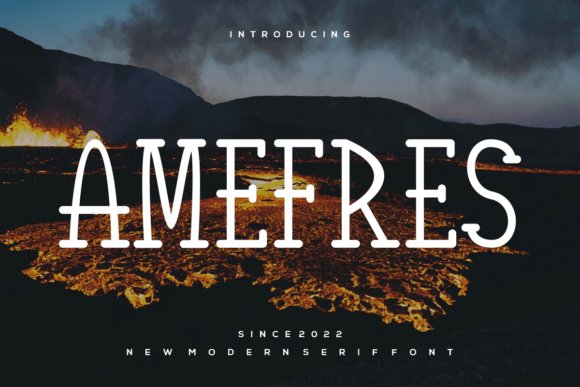
Prepare to be captivated by Amefres, the display font that exudes grace and sophistication. Its roots in classic calligraphy blend seamlessly with a modern, invigorating touch, promising to elevate your designs to extraordinary heights.
Indulge in the allure of Amefres, where each letter dances across the page with an unmatched elegance. Its delicate curves and flowing strokes evoke a sense of timeless beauty, while its crisp, contemporary lines infuse it with a refreshing vitality.
With Amefres, your words will take on a life of their own, captivating your audience and leaving an unforgettable impression. Whether you're crafting a heartfelt goodbye letter or designing an unforgettable invitation, Amefres is the perfect choice to convey emotions and create a lasting impact.
Immerse yourself in the world of Amefres and discover a font that's not just versatile, but deeply evocative. Its versatility extends far beyond its ability to adapt to any design style; it's a font that speaks to the heart, inspiring creativity and igniting imagination.
Don't settle for ordinary fonts that blend into the background. Choose Amefres, the font that will make your words shine, your designs soar, and your message resonate with unmatched impact.